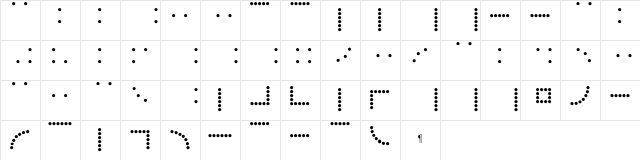
Borders Dot Rule Regular
Design Context for Borders Dot Rule Typeface
Borders Dot Rule is rooted in pixel-grid construction, making it a natural fit for game UI, retro computing aesthetics, and digital nostalgia projects.
Well-suited to indie game interfaces, retro computing aesthetics, and pixel art-adjacent design work.
Pro Tip: Use Borders Dot Rule at sizes that align with its pixel grid for the sharpest rendering — scaling to non-integer multiples can introduce unwanted blur.